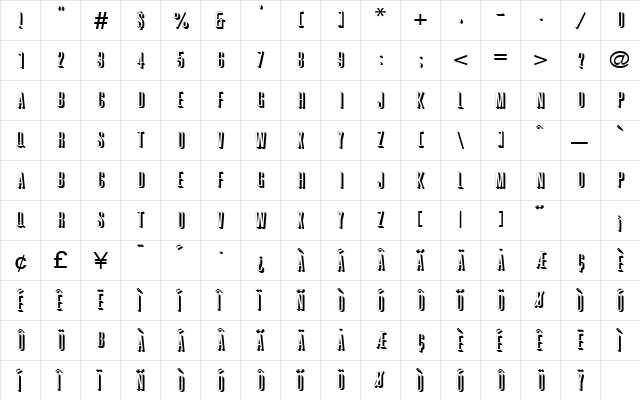
Whiteshade Regular Font Preview
Whiteshade Regular
Design Context for Whiteshade Typeface
Whiteshade is a composed and adaptable typeface that performs quietly and consistently across a wide range of design contexts.